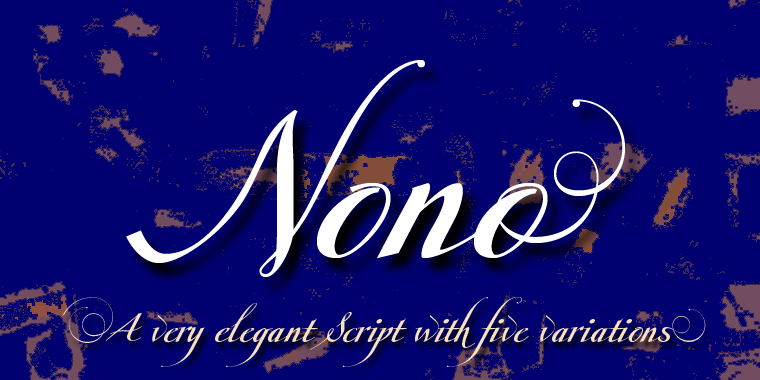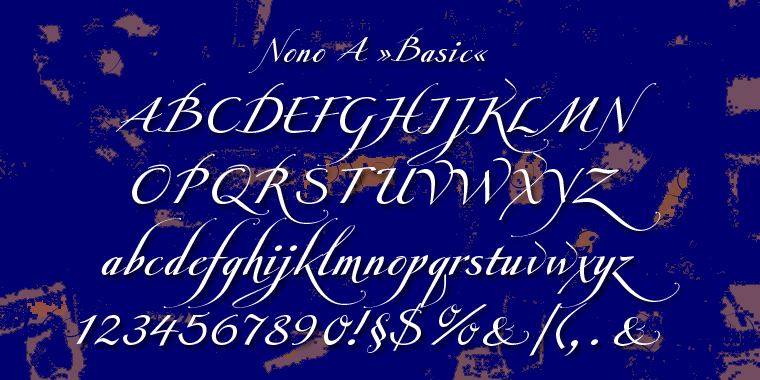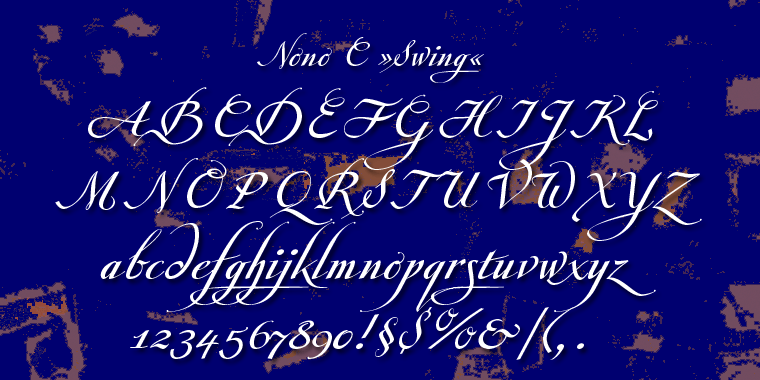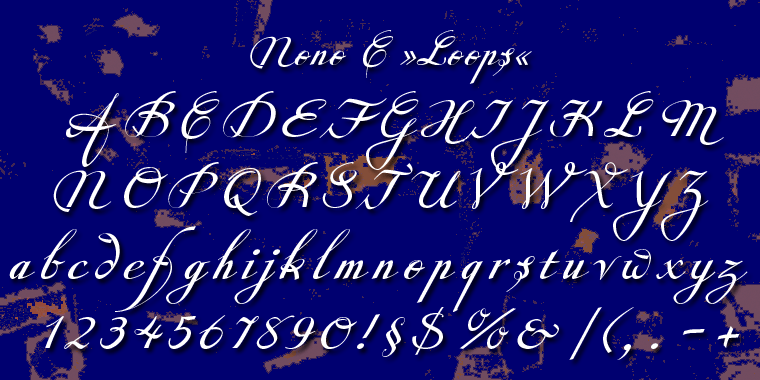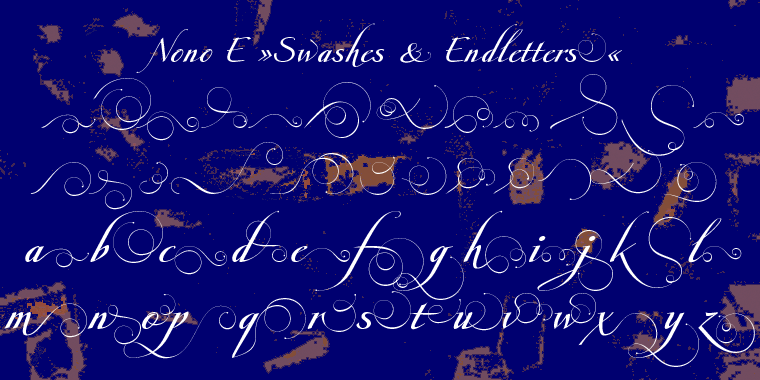
Nono
Font Family by Wiescher Design
Nono is the nickname of my oldest son, Konstantin. His little brother could not really speak yet, but he was always looking for him and said something to the tune of, ?wea is a nono?. From that time on I call Konstantin Nono.
I designed a handwritten script with his real name, that i named Konstantin. Now I made this slick version of that script ? hence ? Nono! I made three basic sets of characters plus a smallcaps version. To top things off, I designed a set of endletters that I throw in for free. Everything can be mixed! I sell single cuts but the best deal would be the entire packet, it goes for a very fair price.